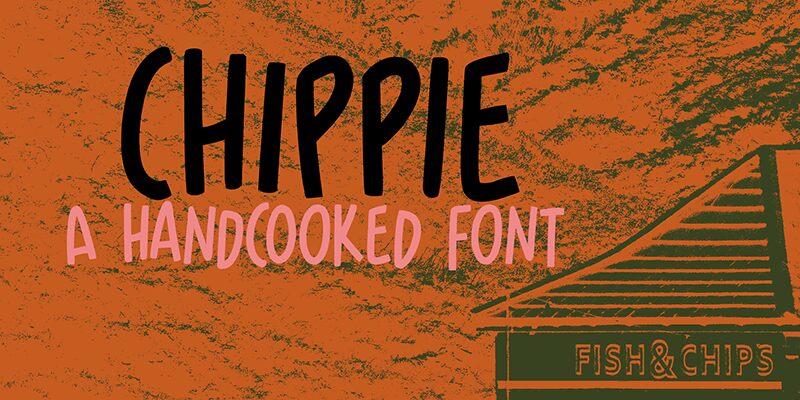
Chippie DEMO Regular
Chippie font is a hand-drawn style typeface designed by Hanoded. This comic display font is limited in its options, but offers condensed width characters with an organic flow and a slightly irregular geometry that makes them unique. Each glyph has a personalized touch to it along with the entire font structure that comes out as casual.